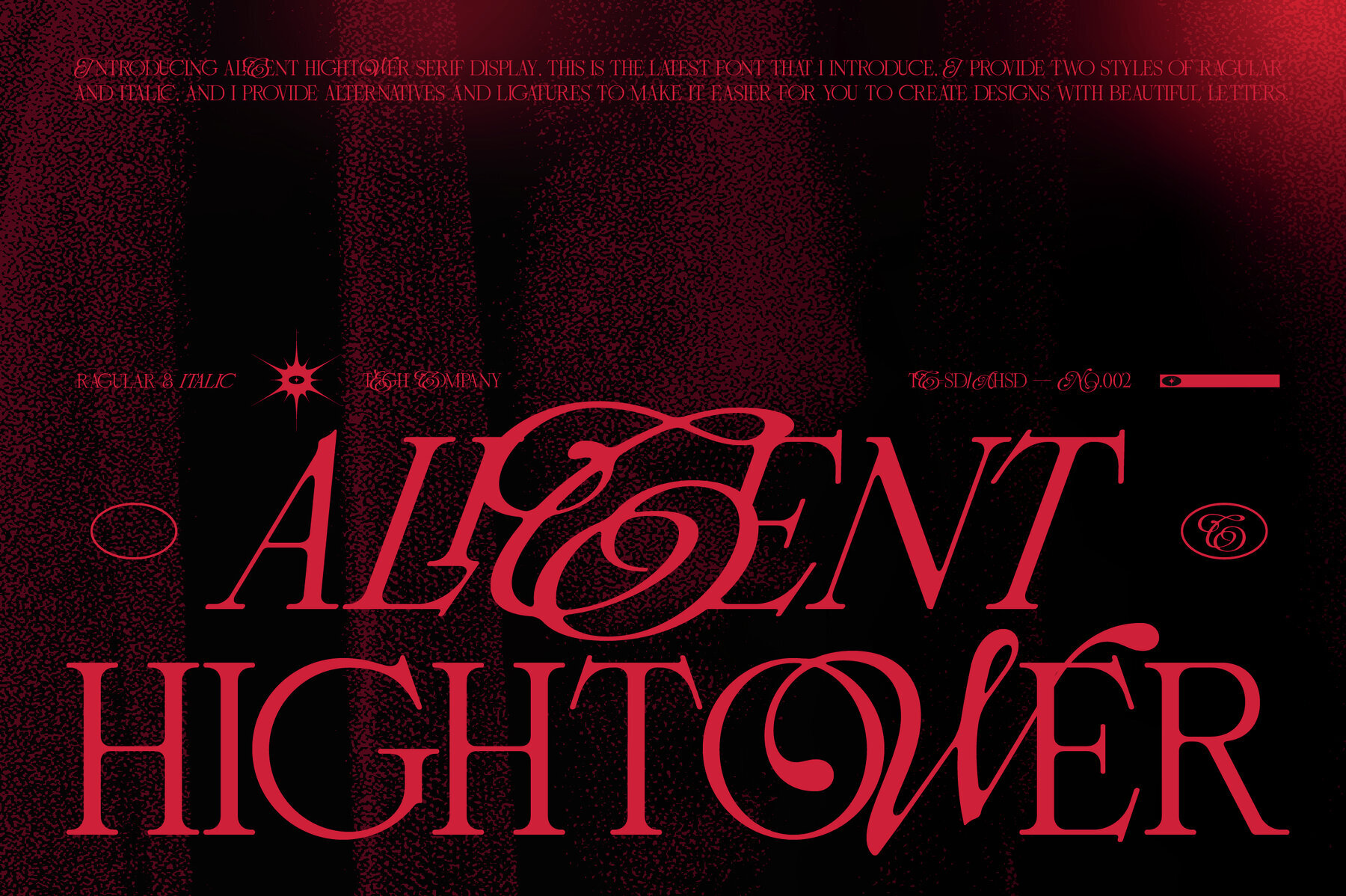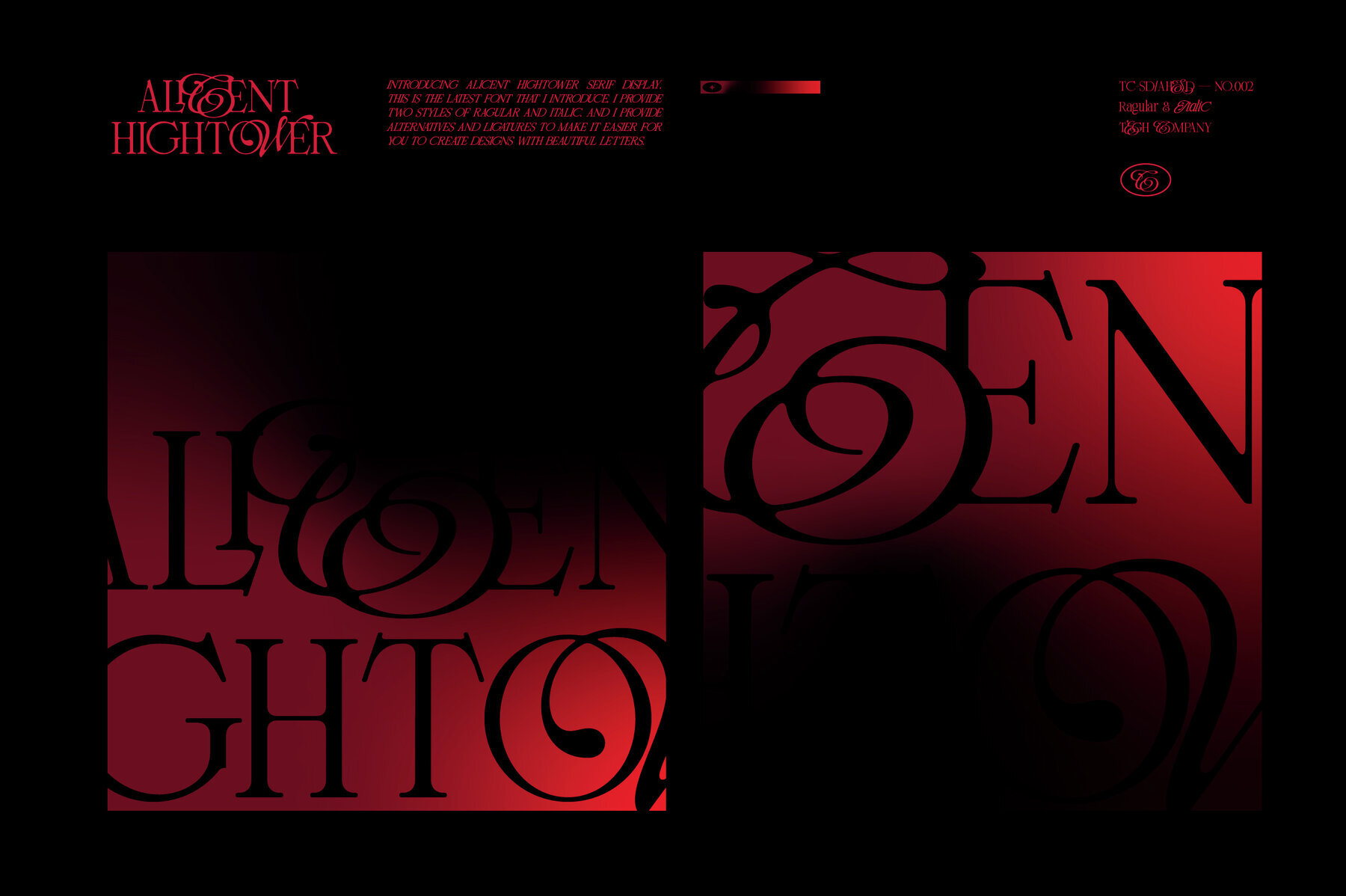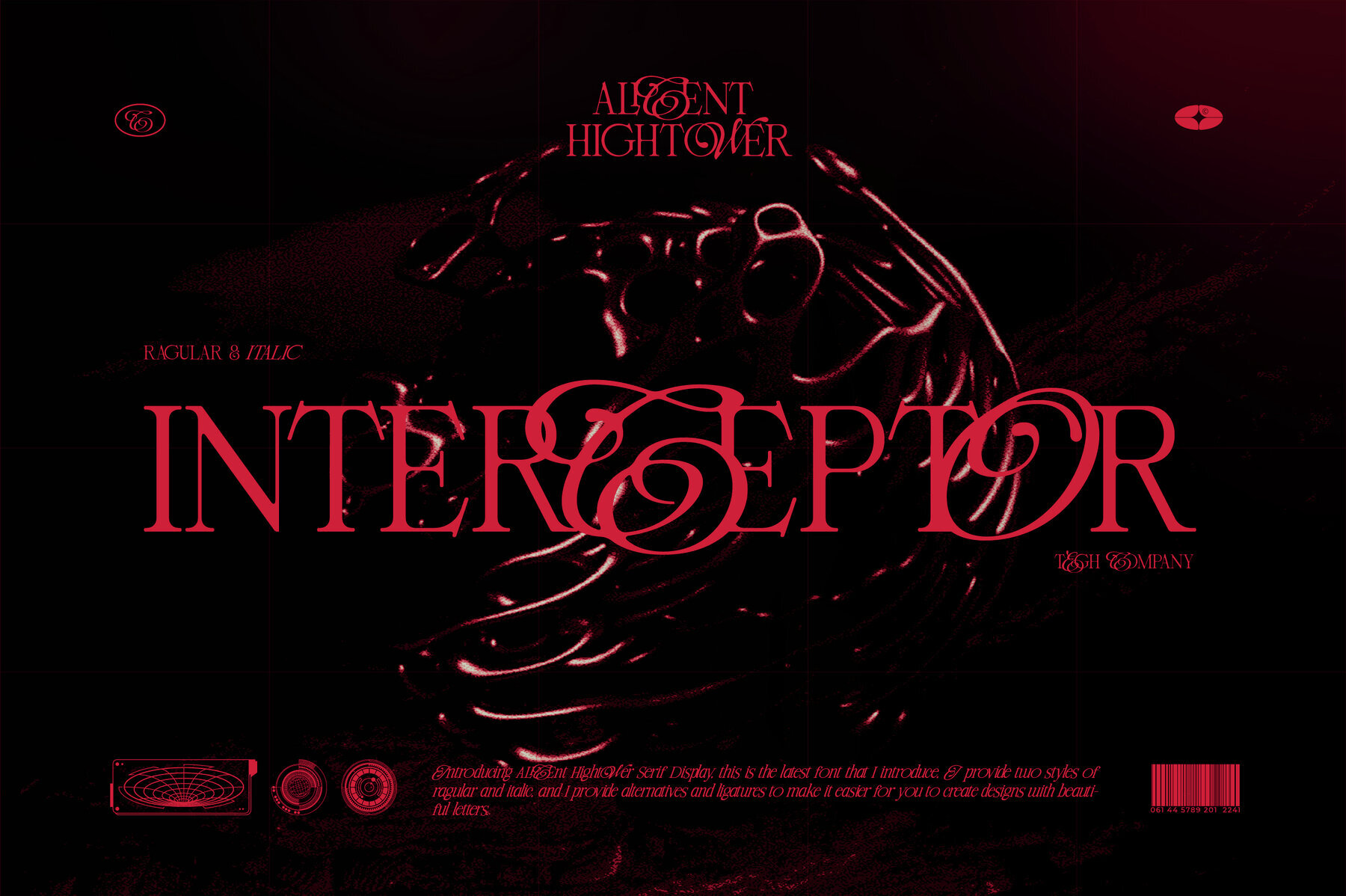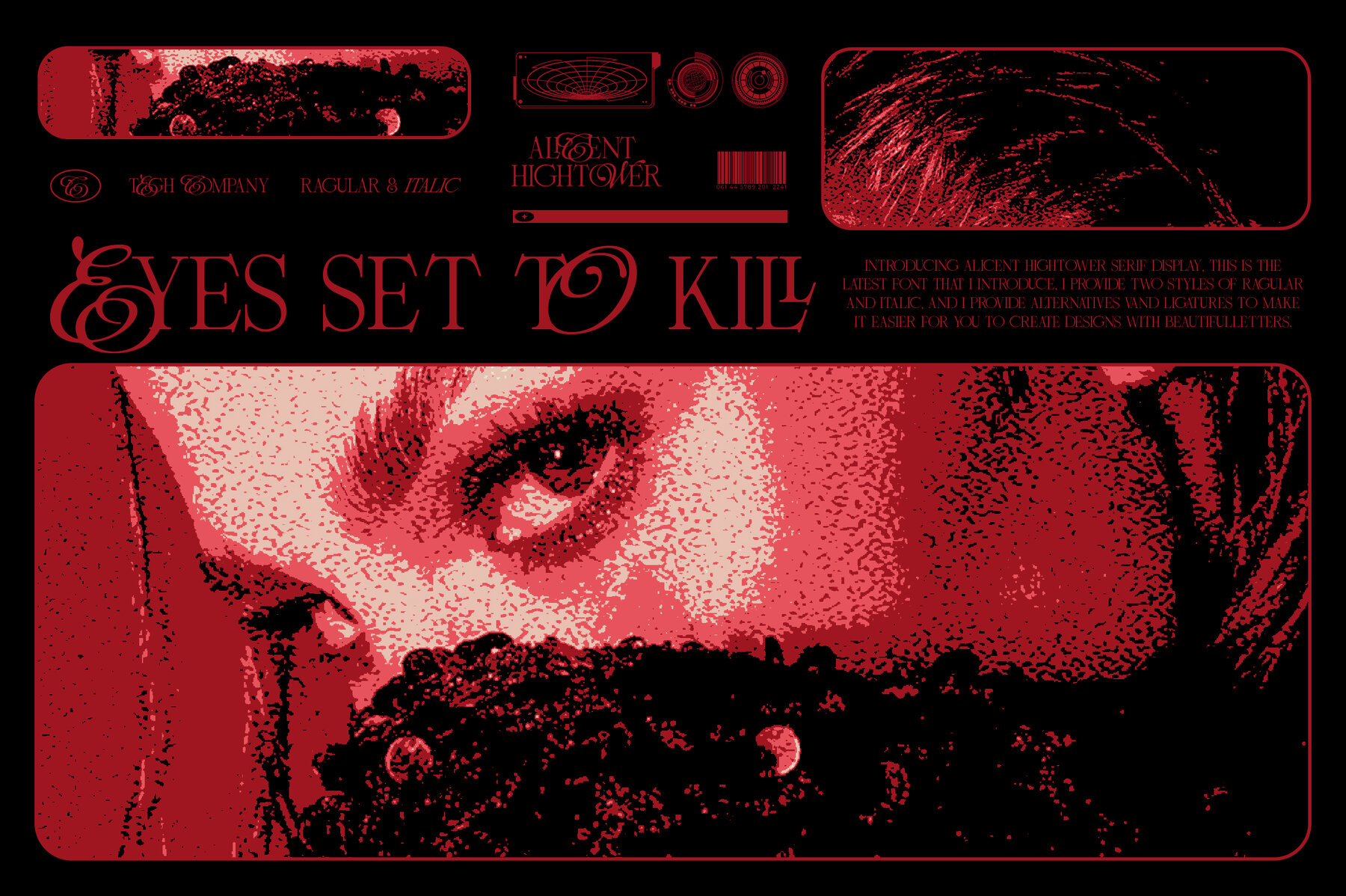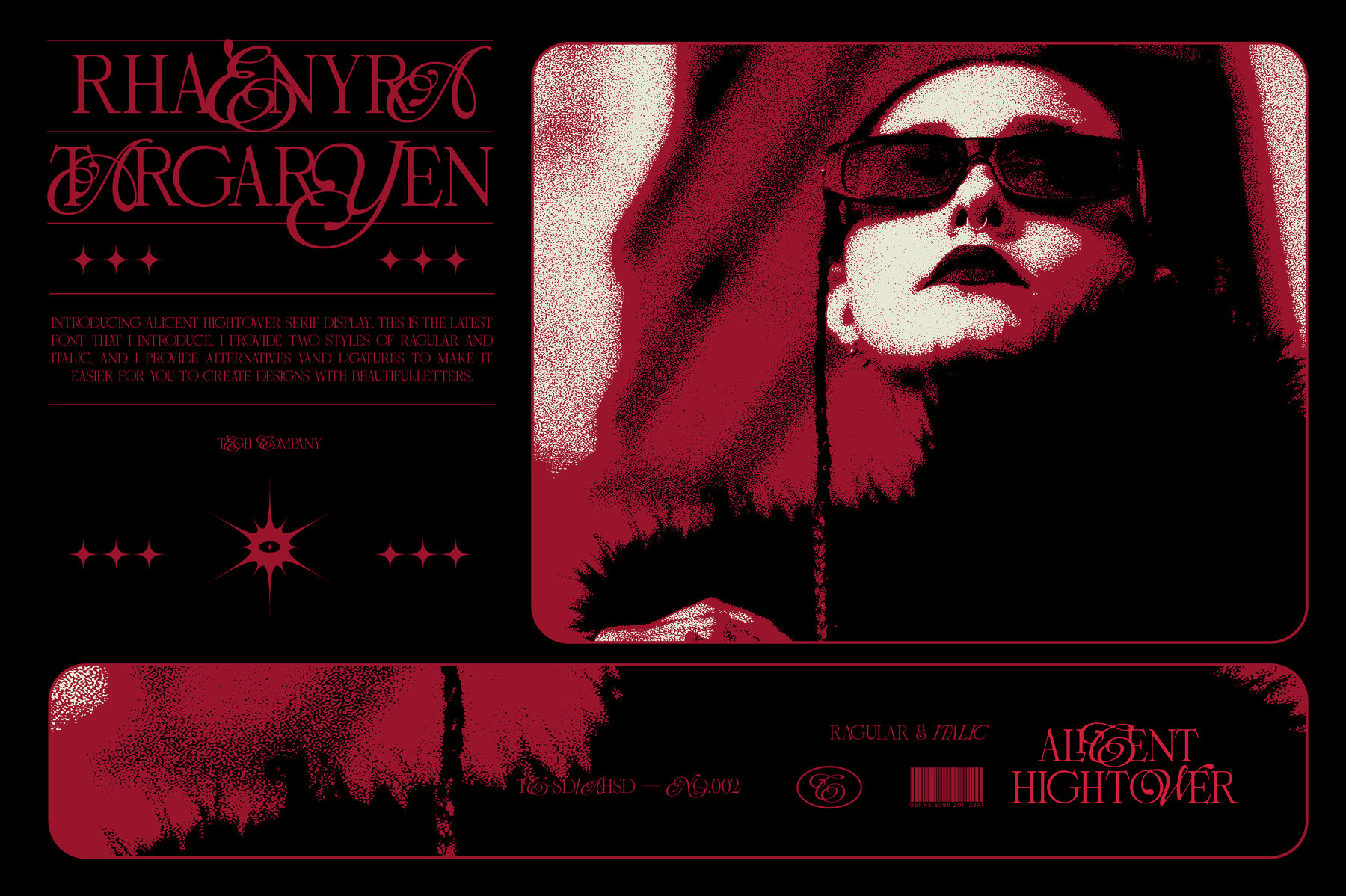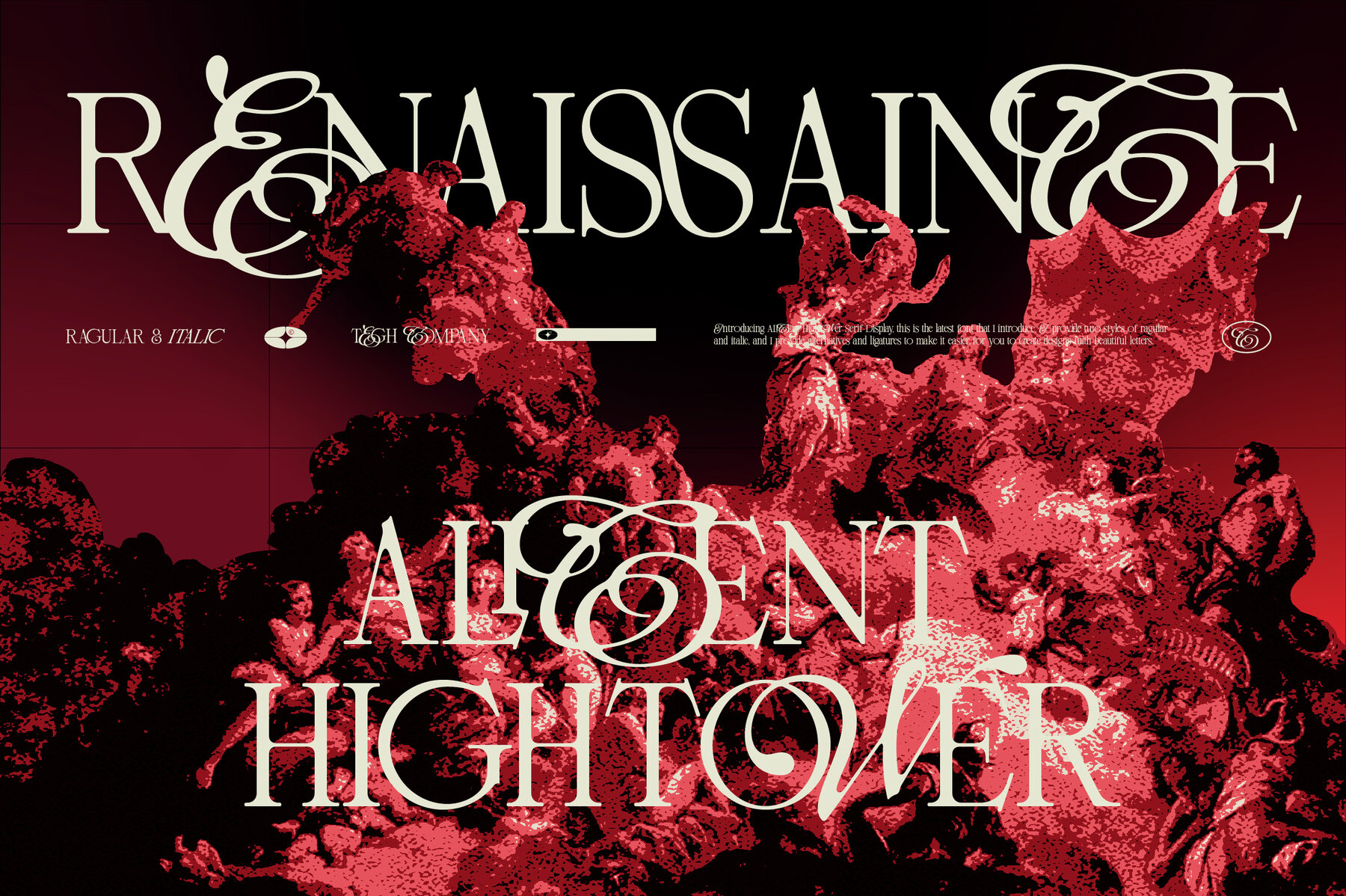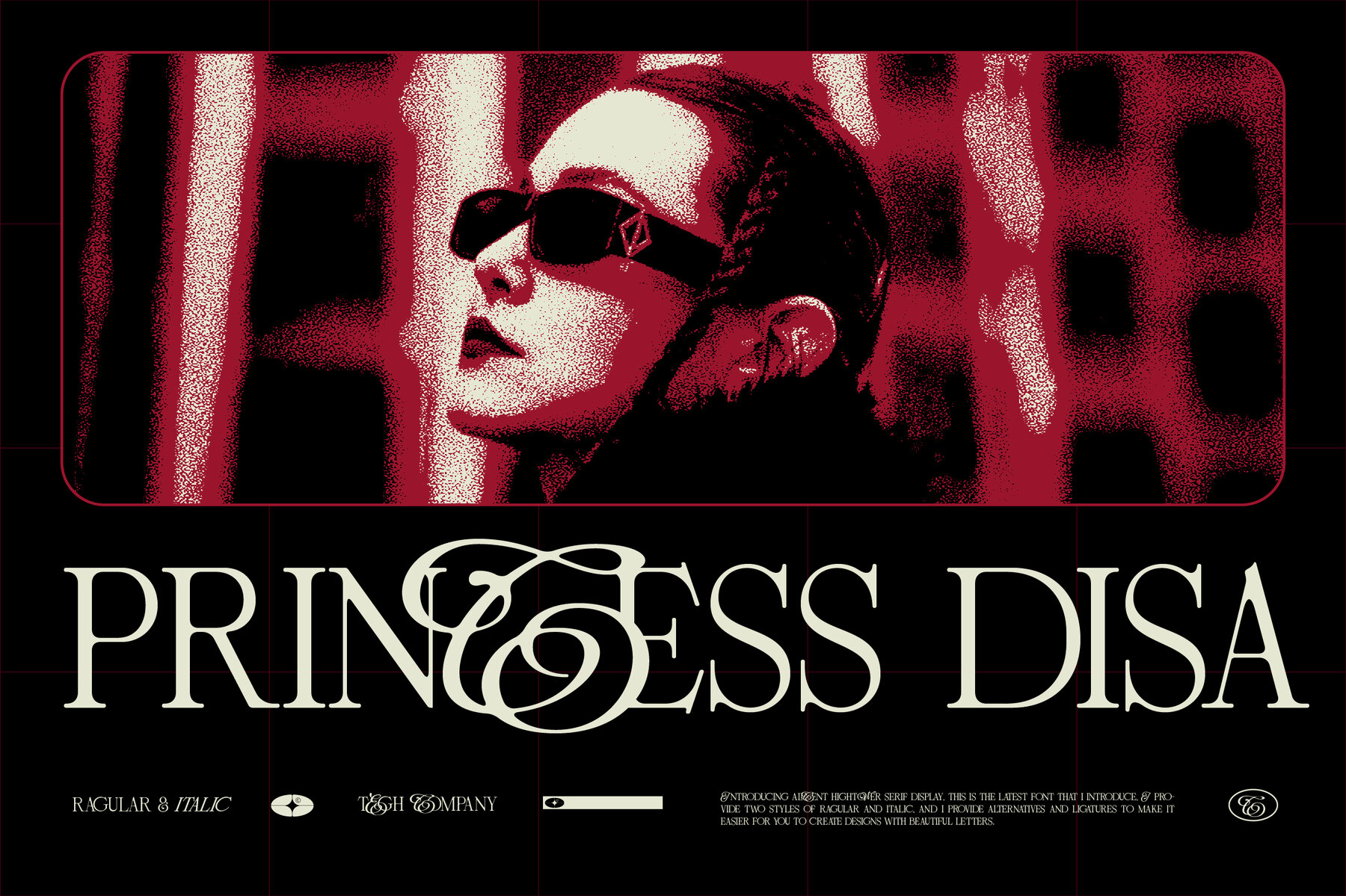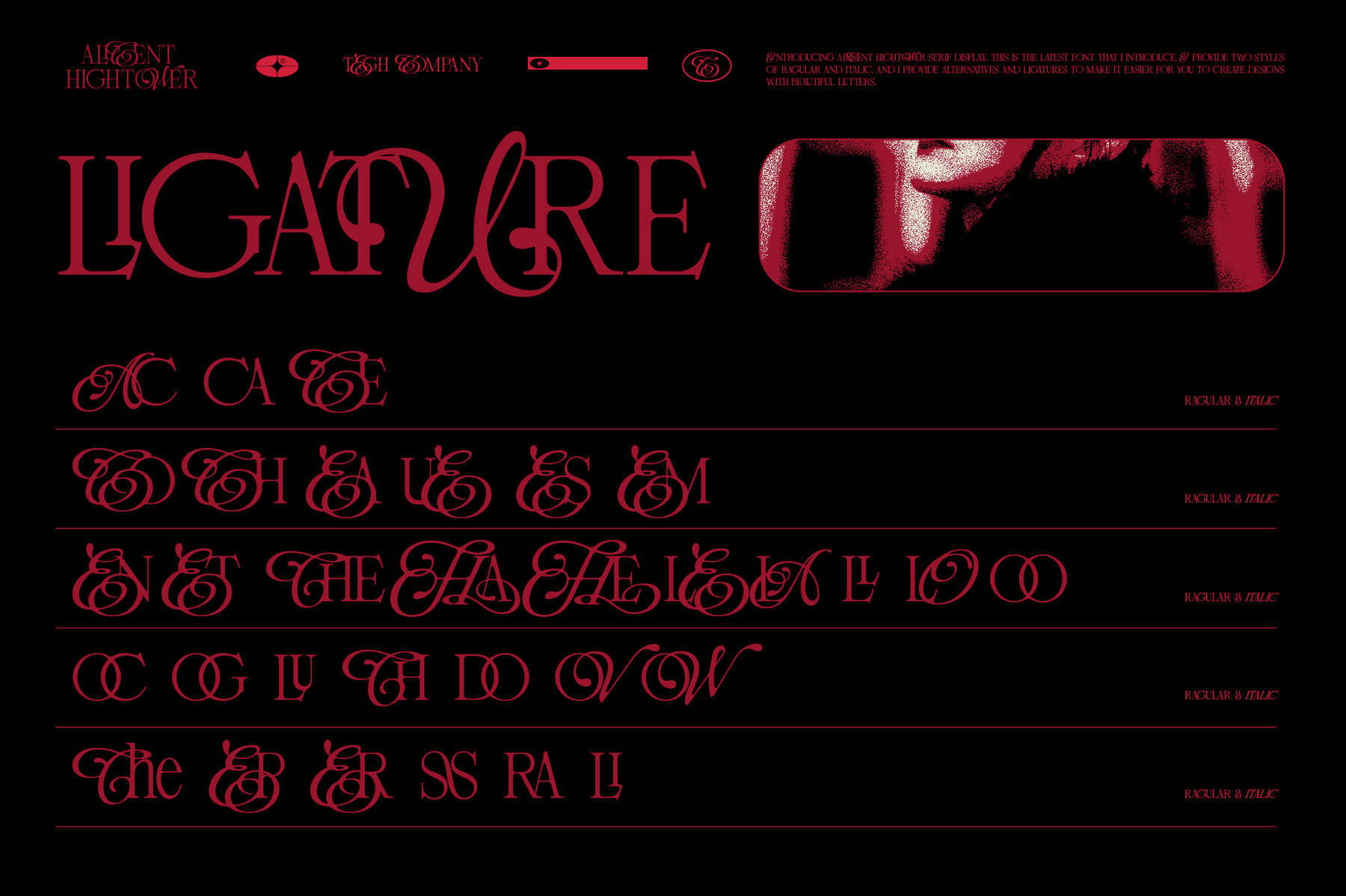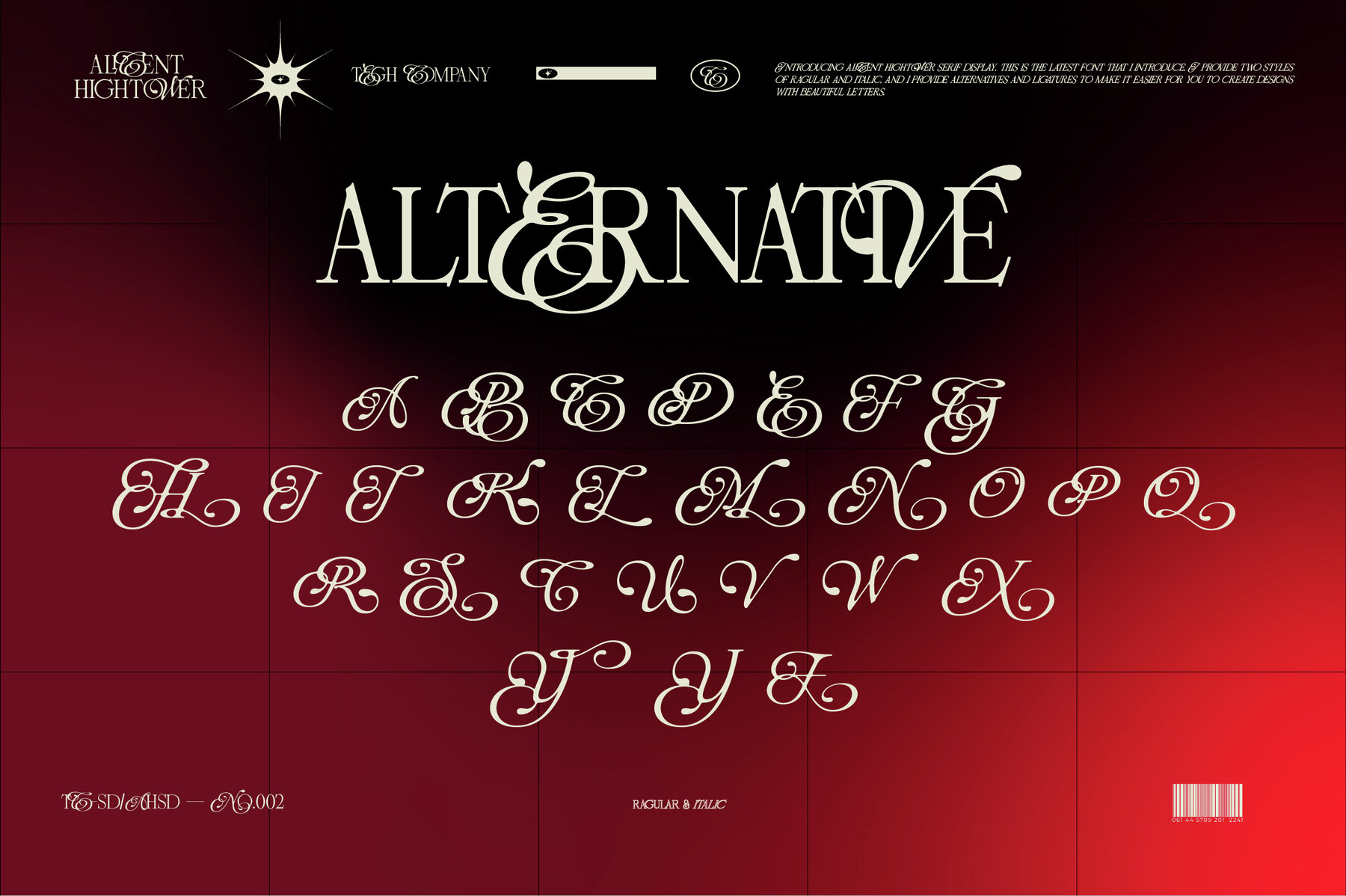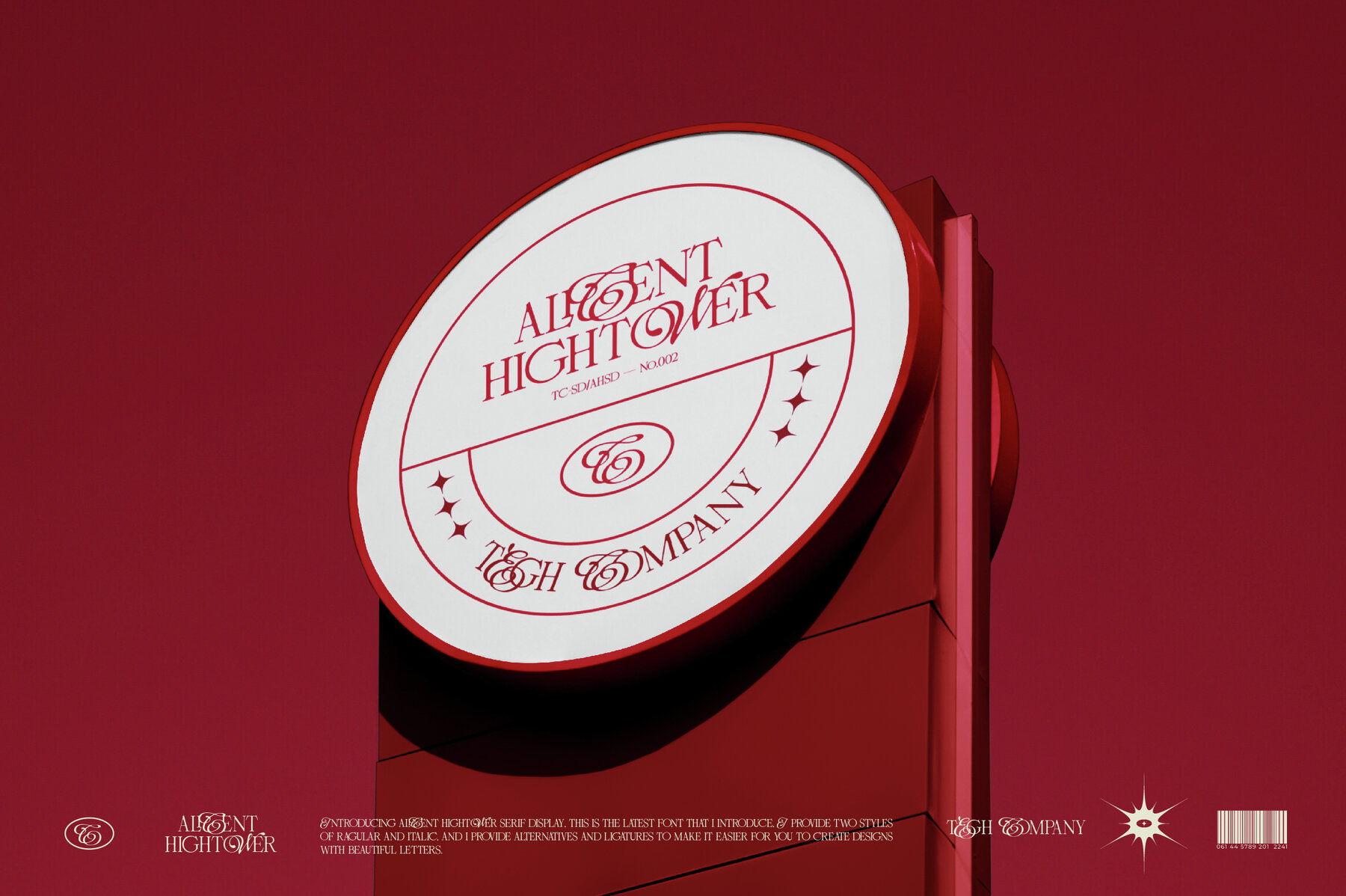
Alicent Hightower Font
This elegant serif font features a high-contrast design, making it ideal for projects that require a touch of sophistication and timelessness. Its classical form and refined details are perfect for editorial layouts, book covers, magazines, and professional branding materials. The font's readability and artistic flair also make it suitable for literary projects and luxury designs that wish to convey a sense of classic beauty and timeless elegance.